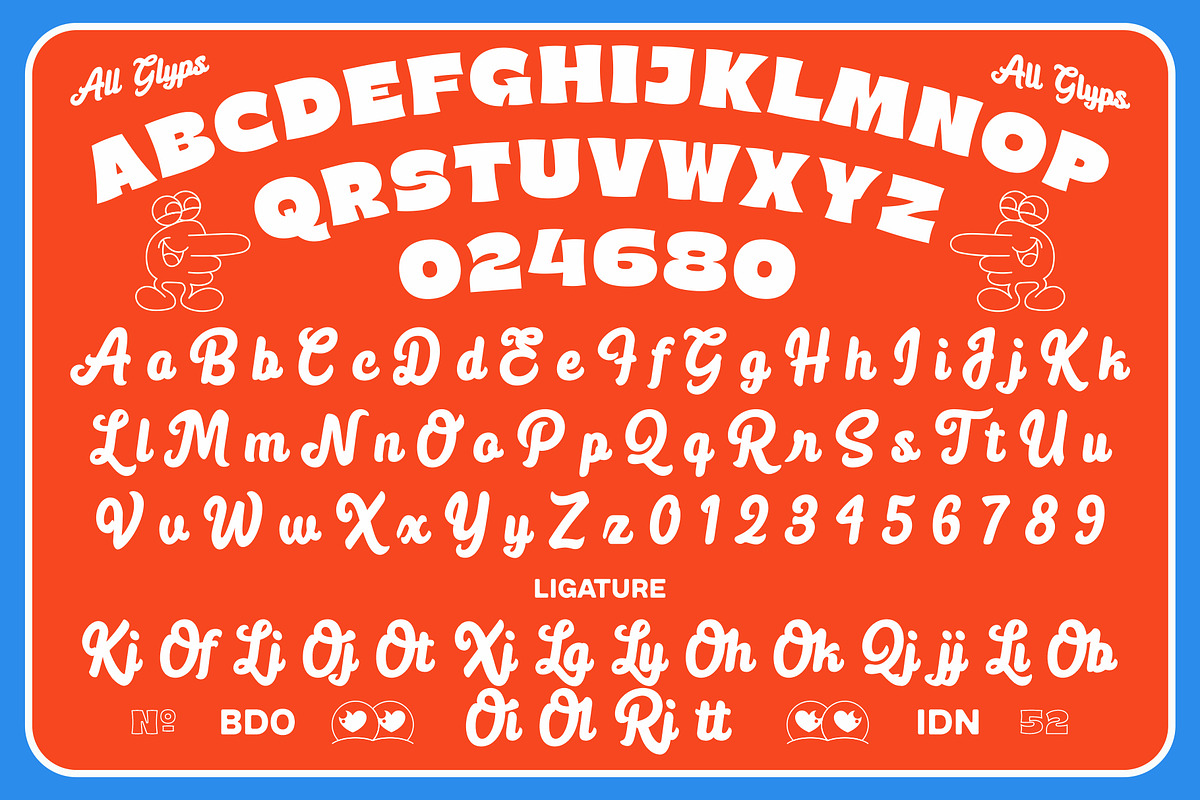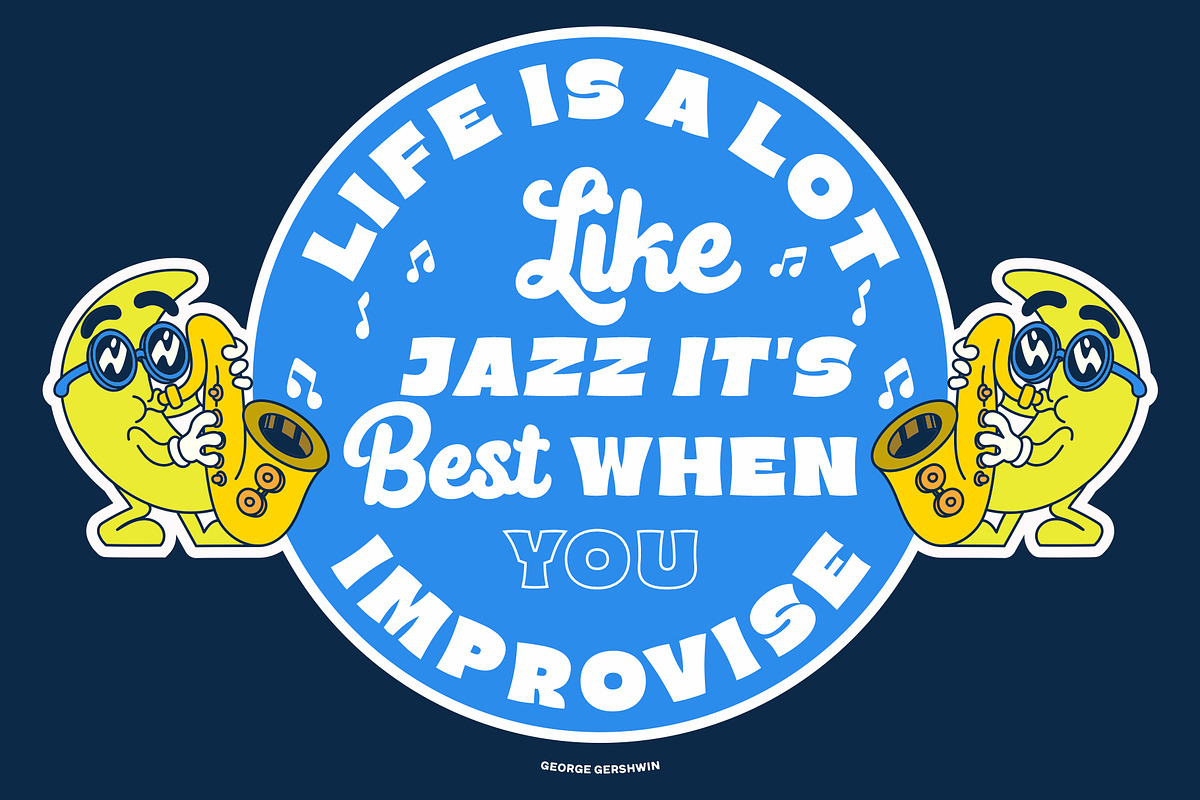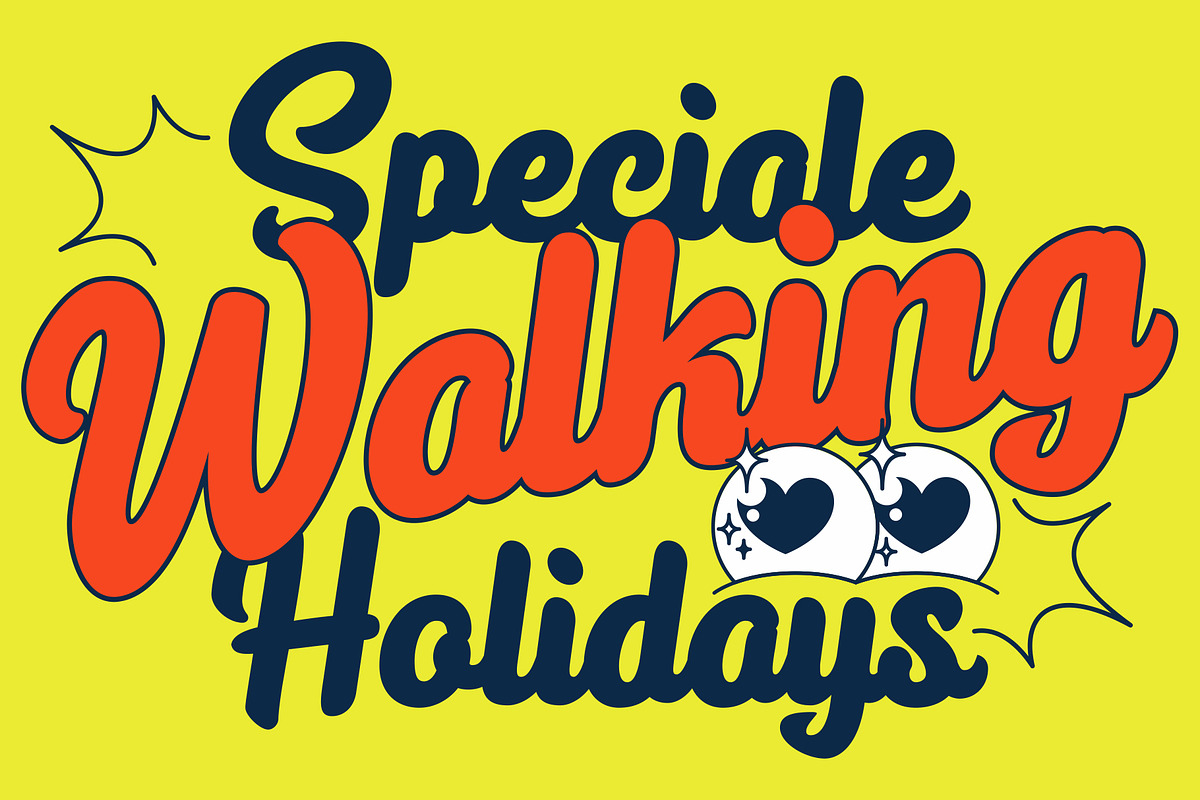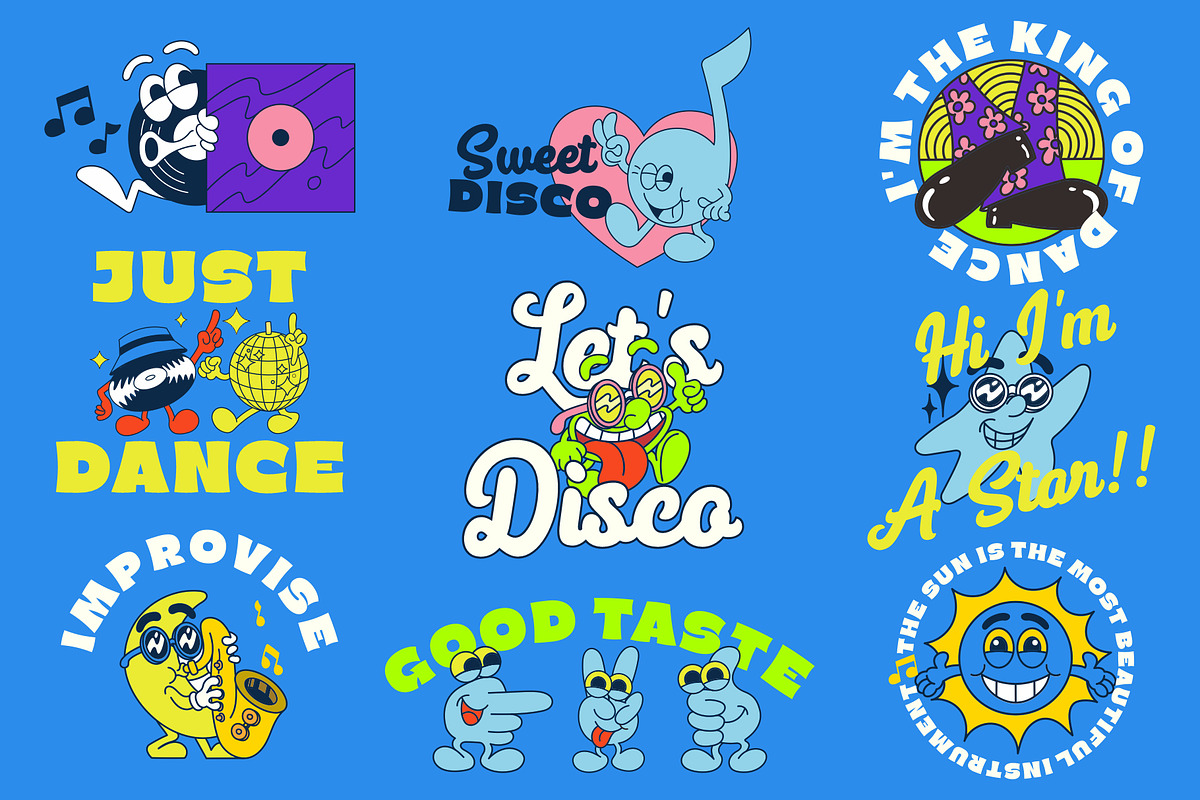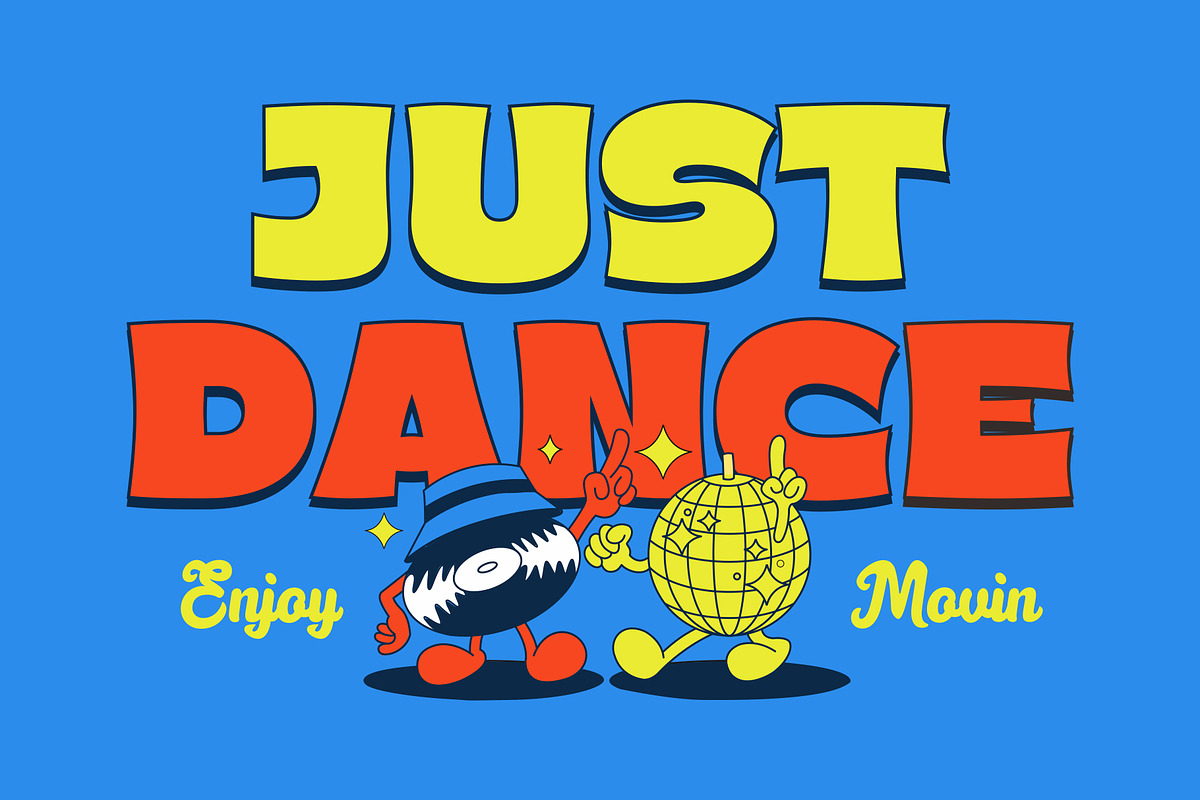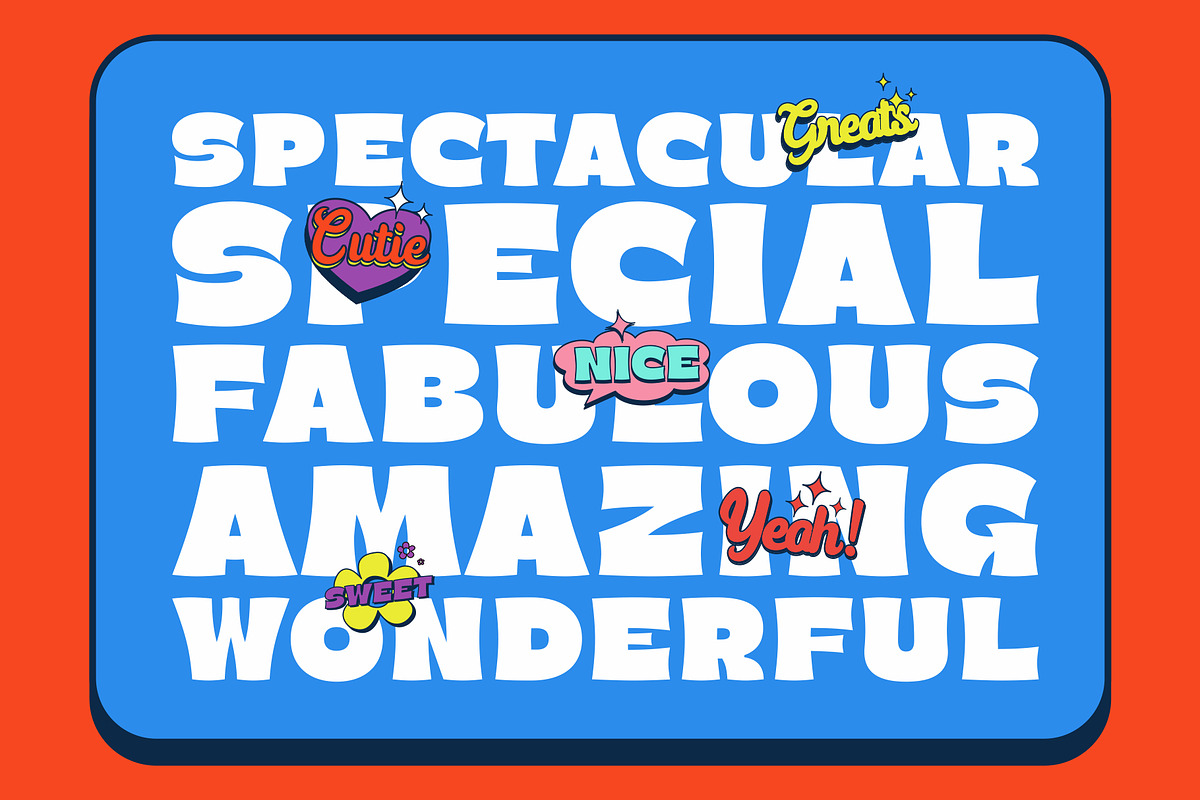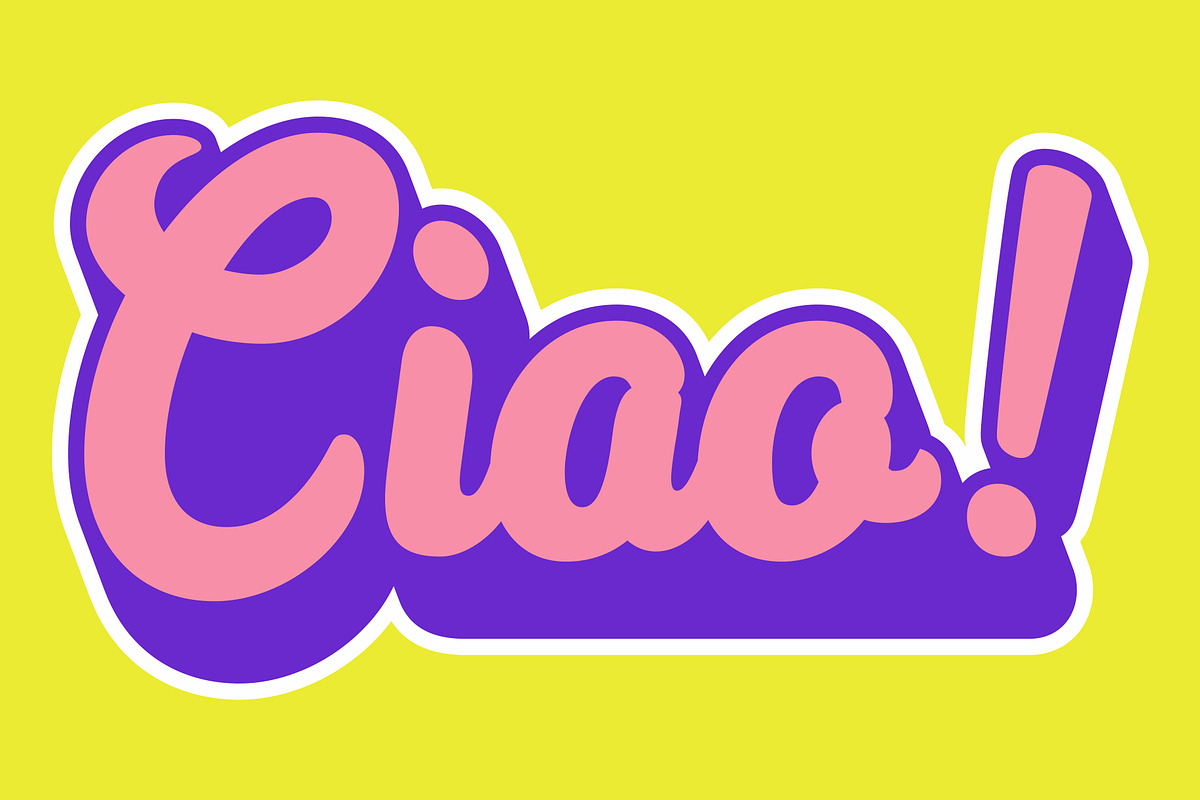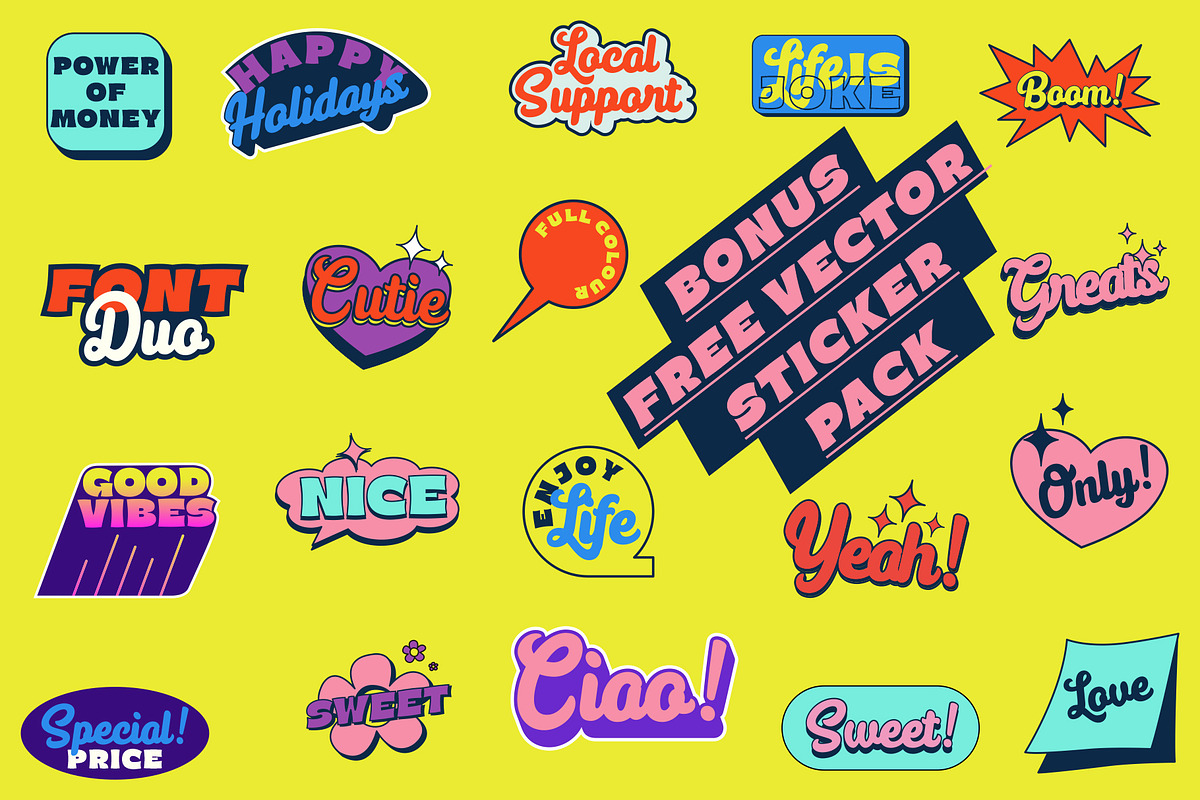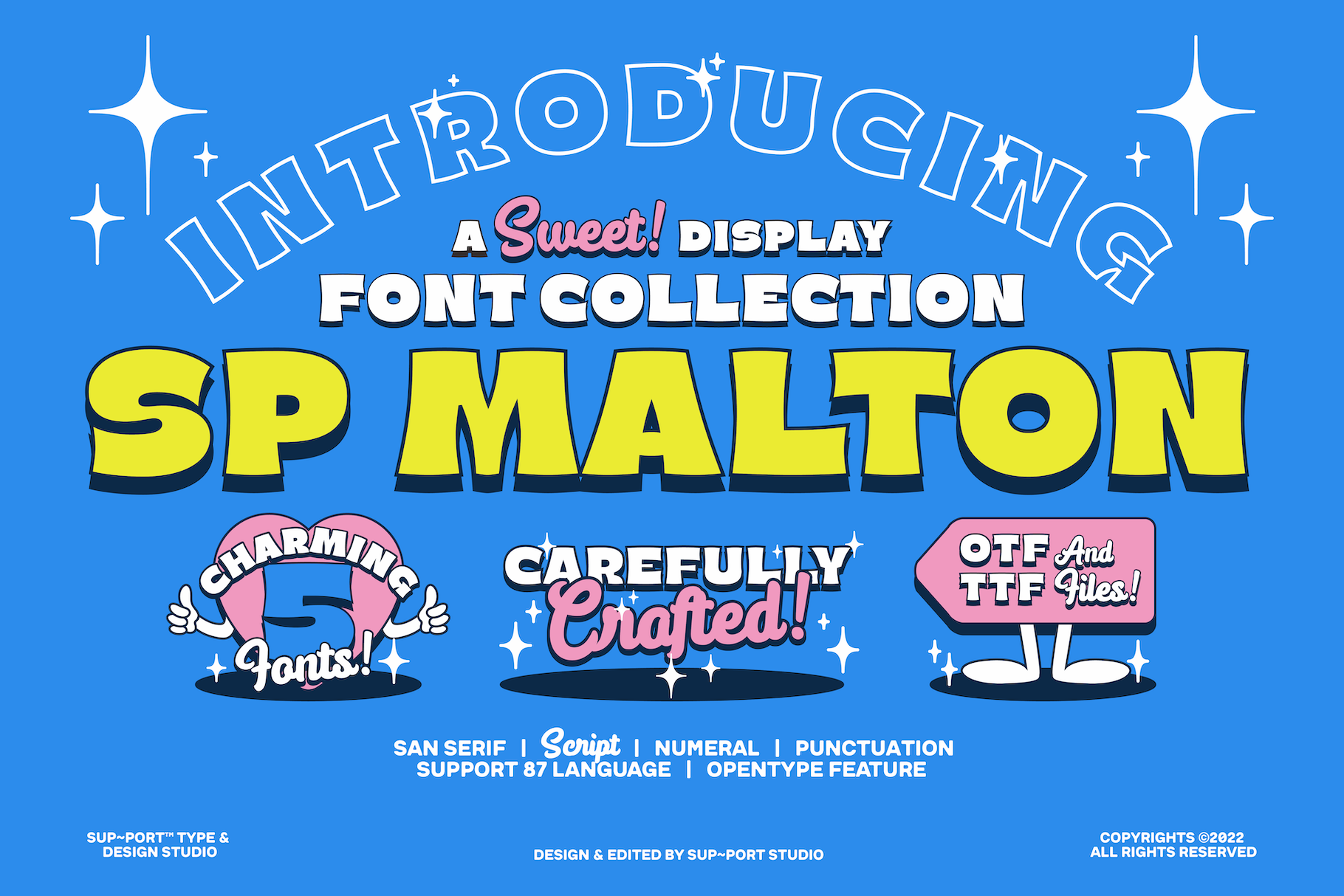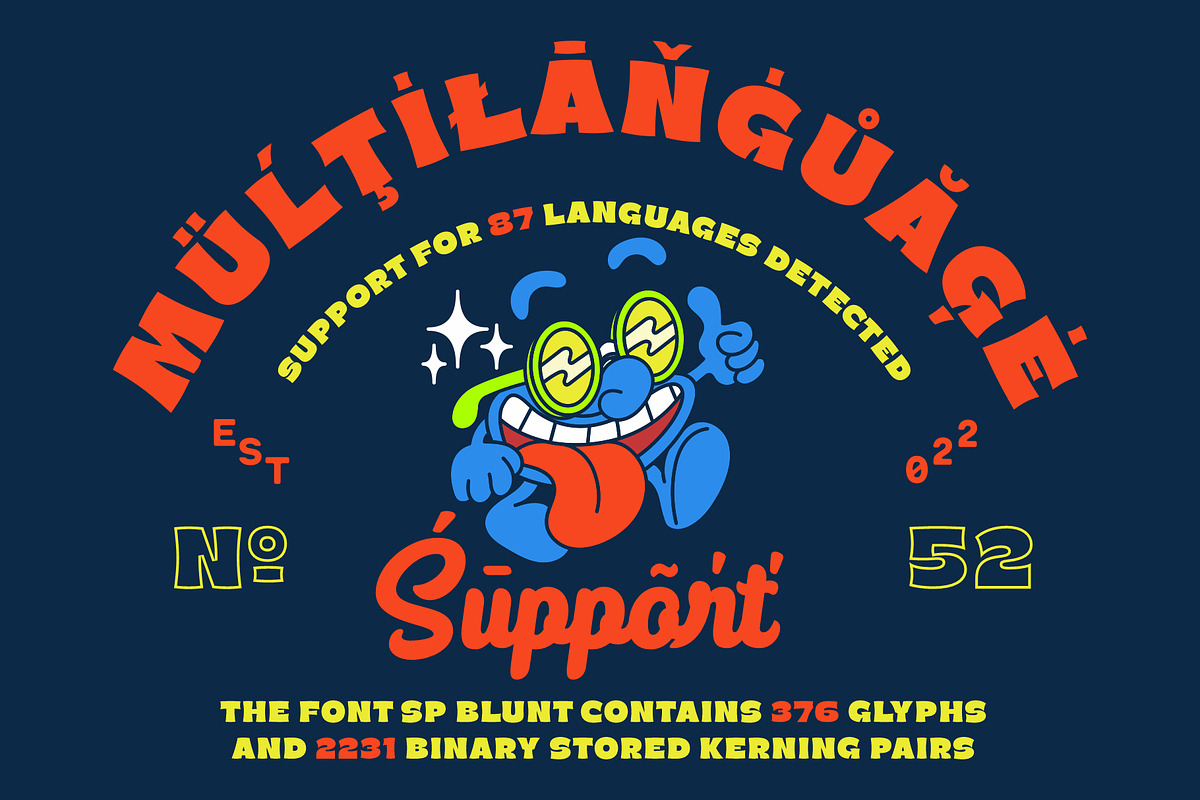
SP MALTON FONT BUNDLE COLLECTIONS
SP MALTON is a bundle collection of 4 Sans Serif Style font & 1 Script Style font + FREE Graphic Sticker & Illustration with a dynamic style, following the current trends, can include a modern vintage look, happy, elegent look, and clean.
These bundle would be perfect to combine in your design. Typeface coming with opentype feature like ligatures and ordinal, as well as multi-lingual support, currency figures, numerals, punctuation, arrow.
Opentype Features :
Ligatures, Ordinals, Stylistic Set,
Support Language Extended Latin